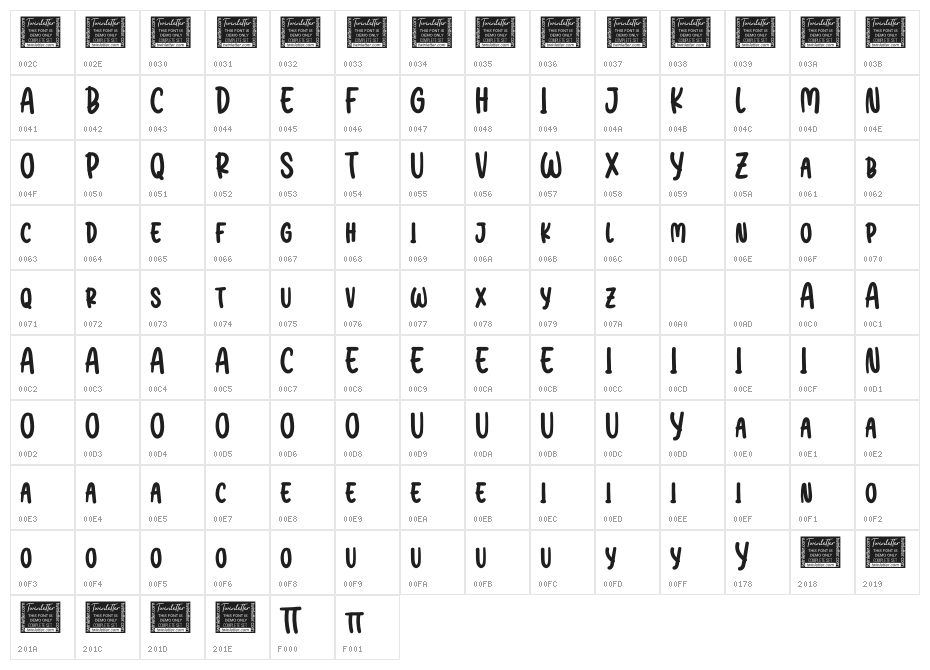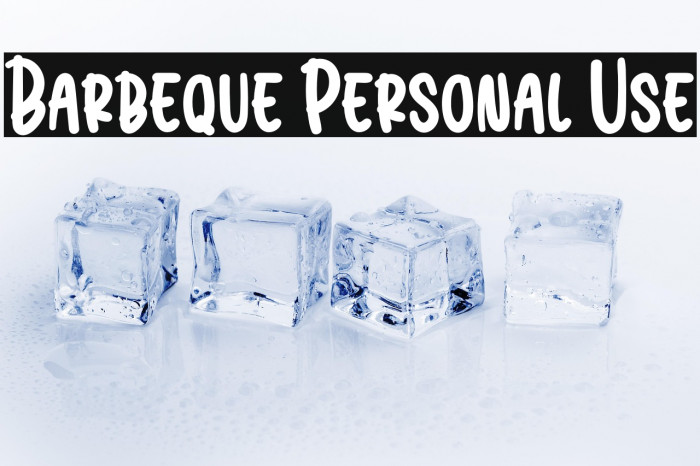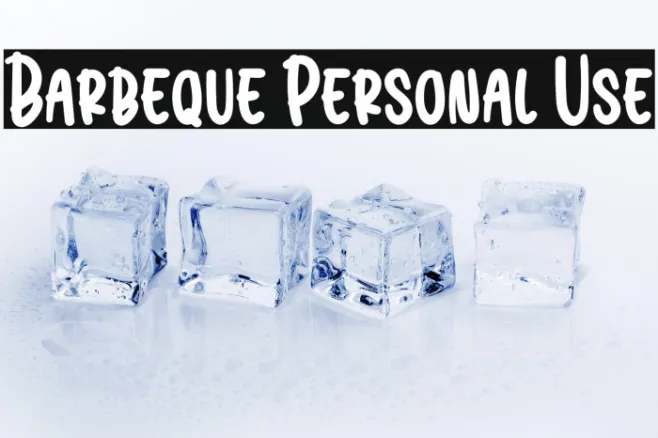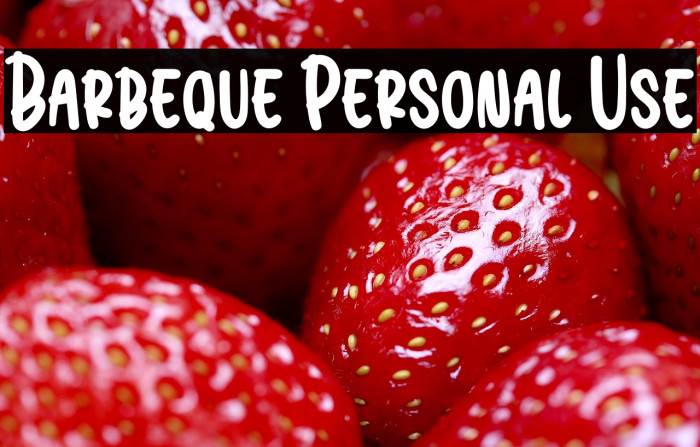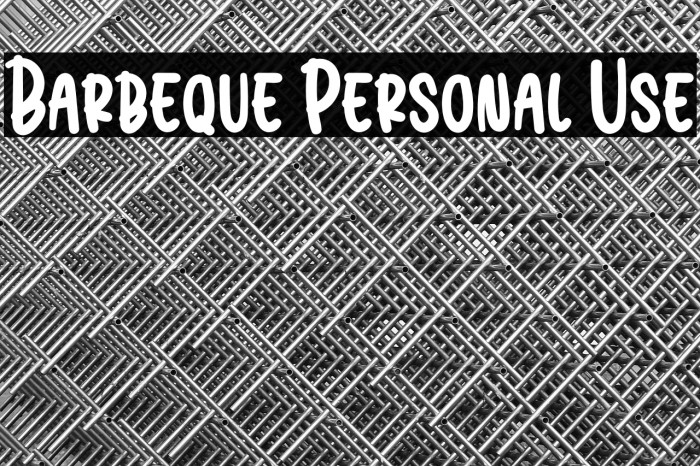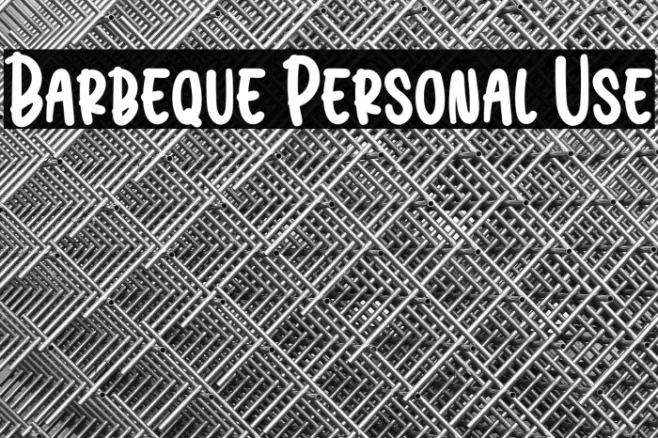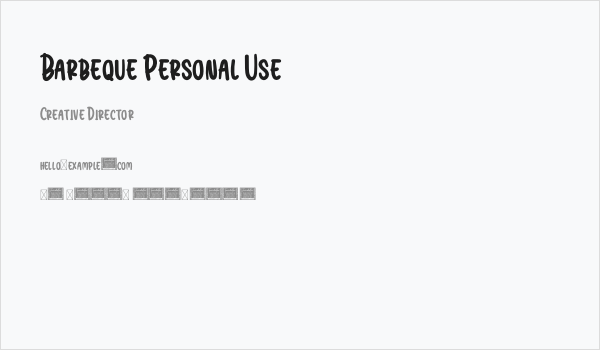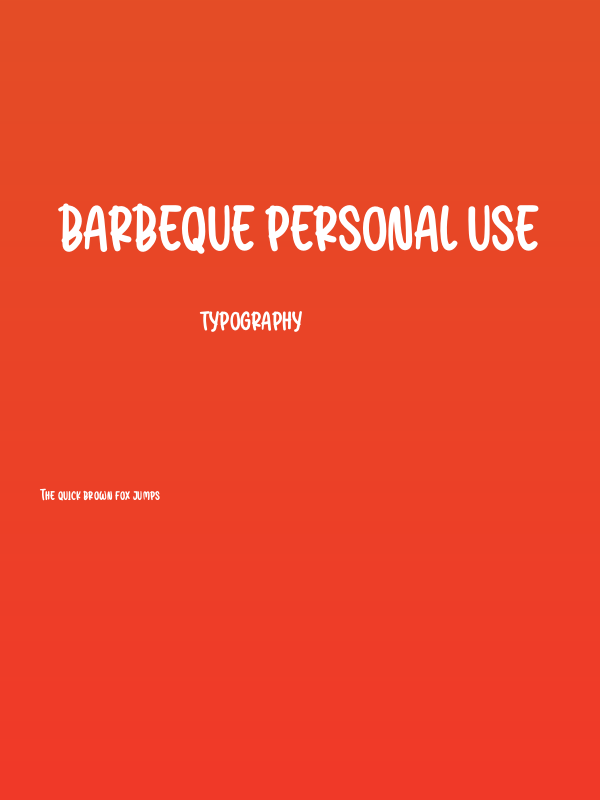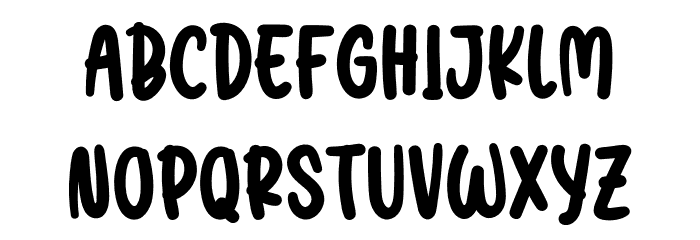
Barbeque Personal Use Font
Barbeque Personal Use Description
This font features a bold, playful style with rounded edges and a hand-drawn appearance. The uppercase letters are prominent and slightly condensed, giving a casual yet impactful look. The strokes are consistent in width, providing a uniform appearance across all characters. The font exudes a friendly and approachable vibe, making it suitable for informal and creative projects. Its design is reminiscent of marker or brush lettering, adding a personal touch to any text. The characters are well-spaced, ensuring readability while maintaining a cohesive flow.
| Proposed Projects | Ideal for posters, social media graphics, children's books, and branding materials that require a fun and approachable look. |